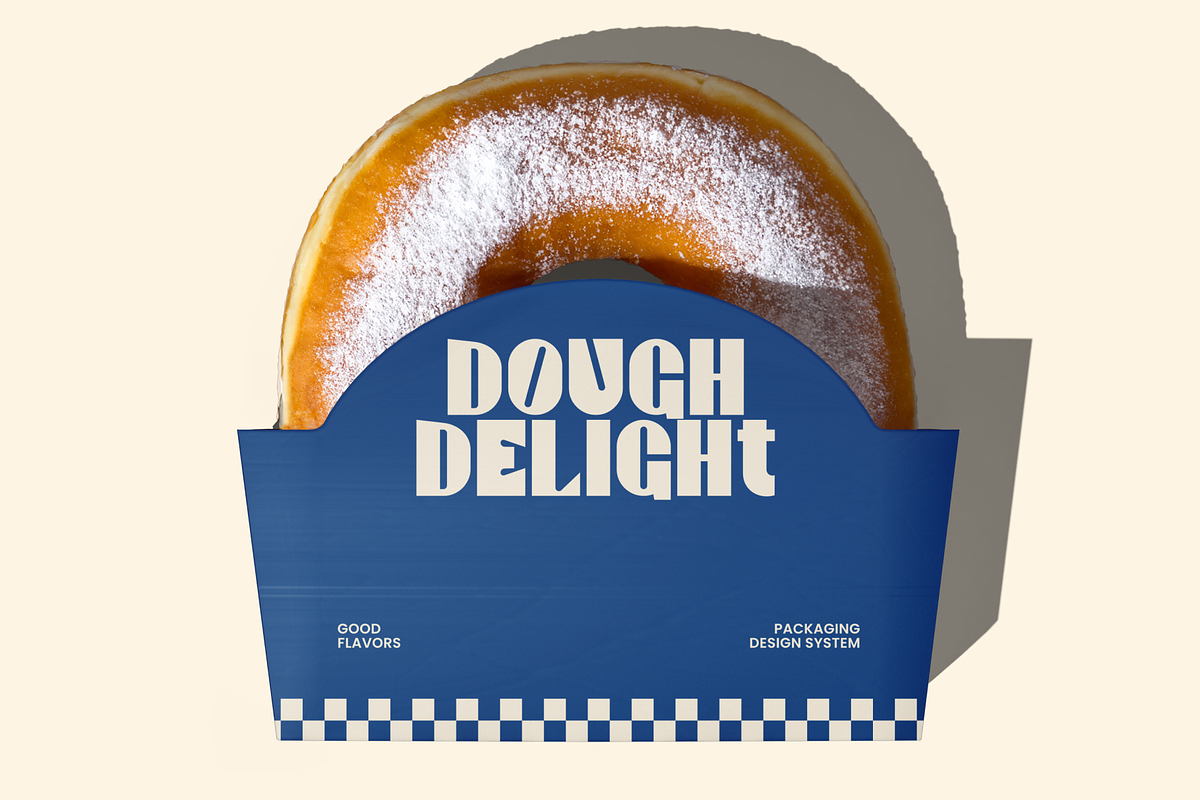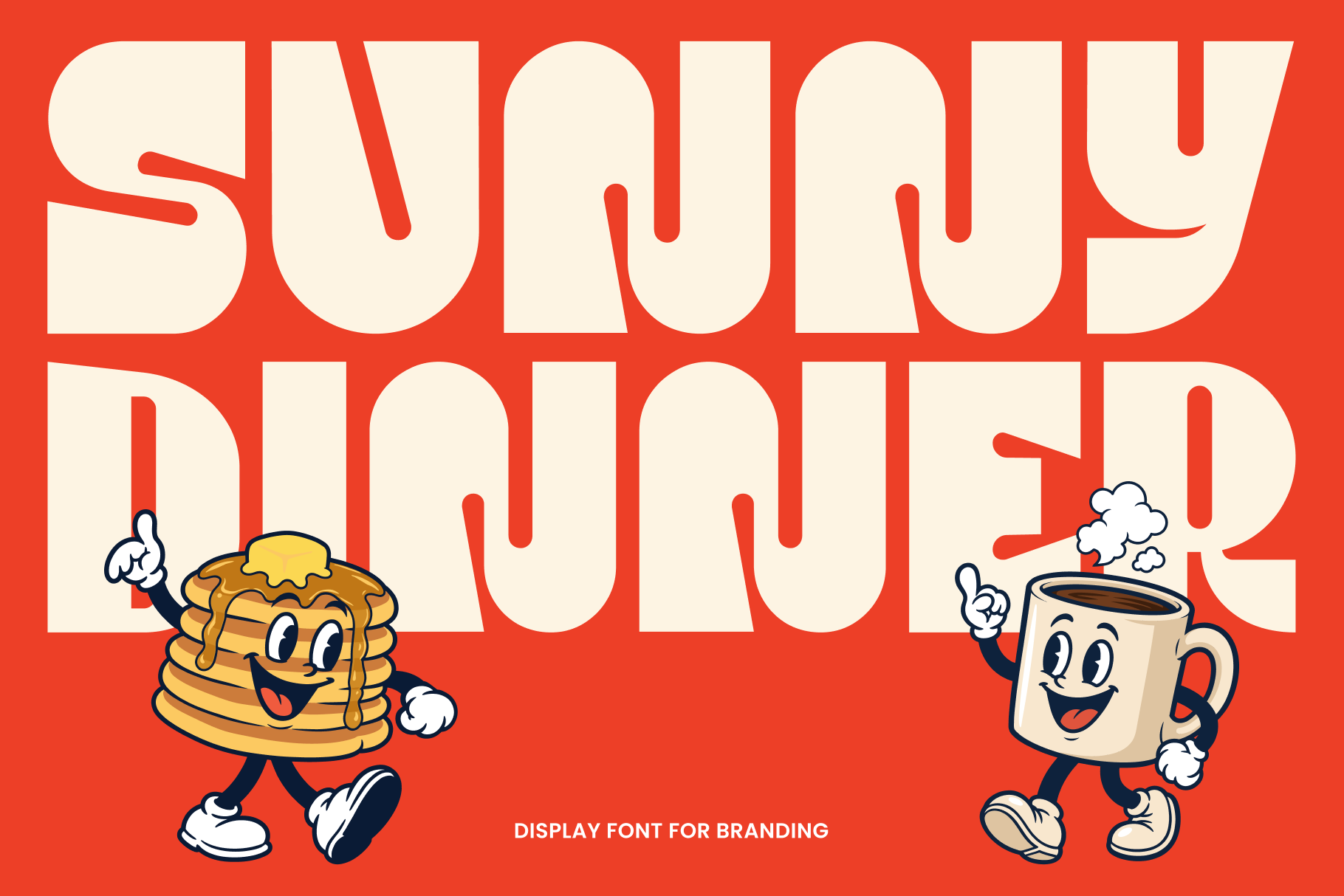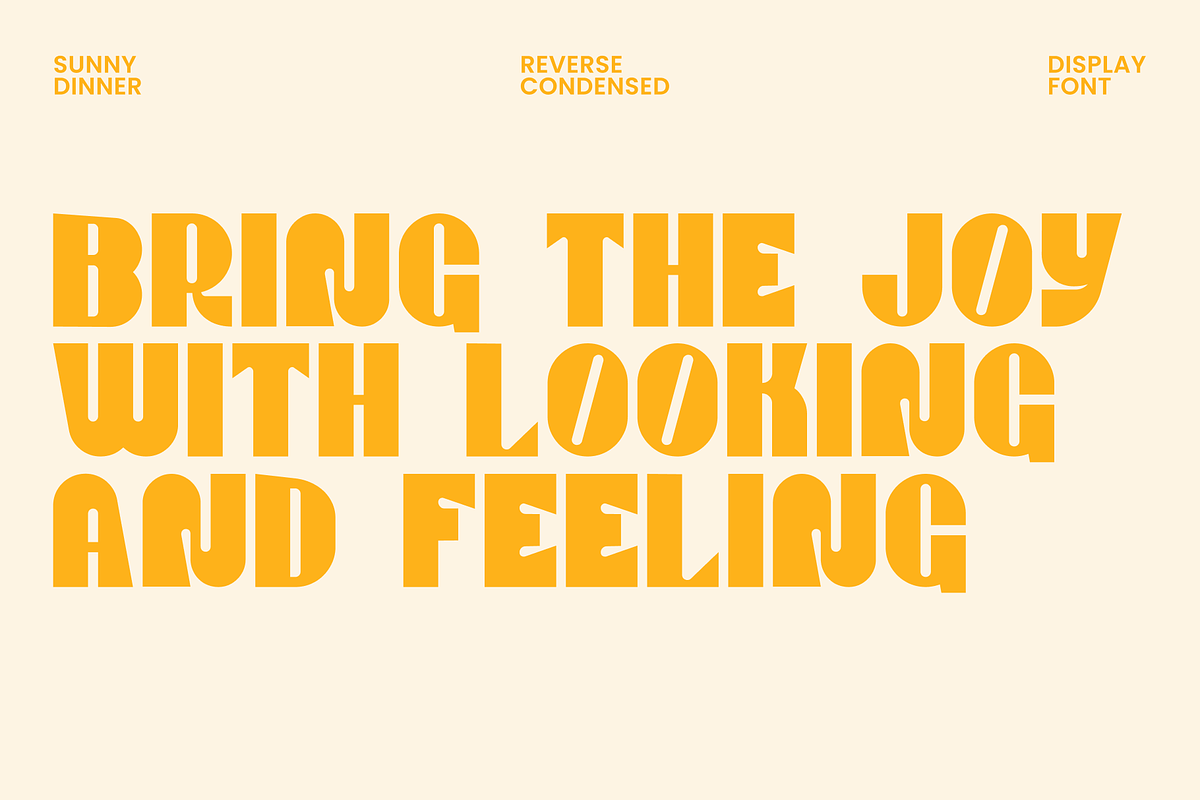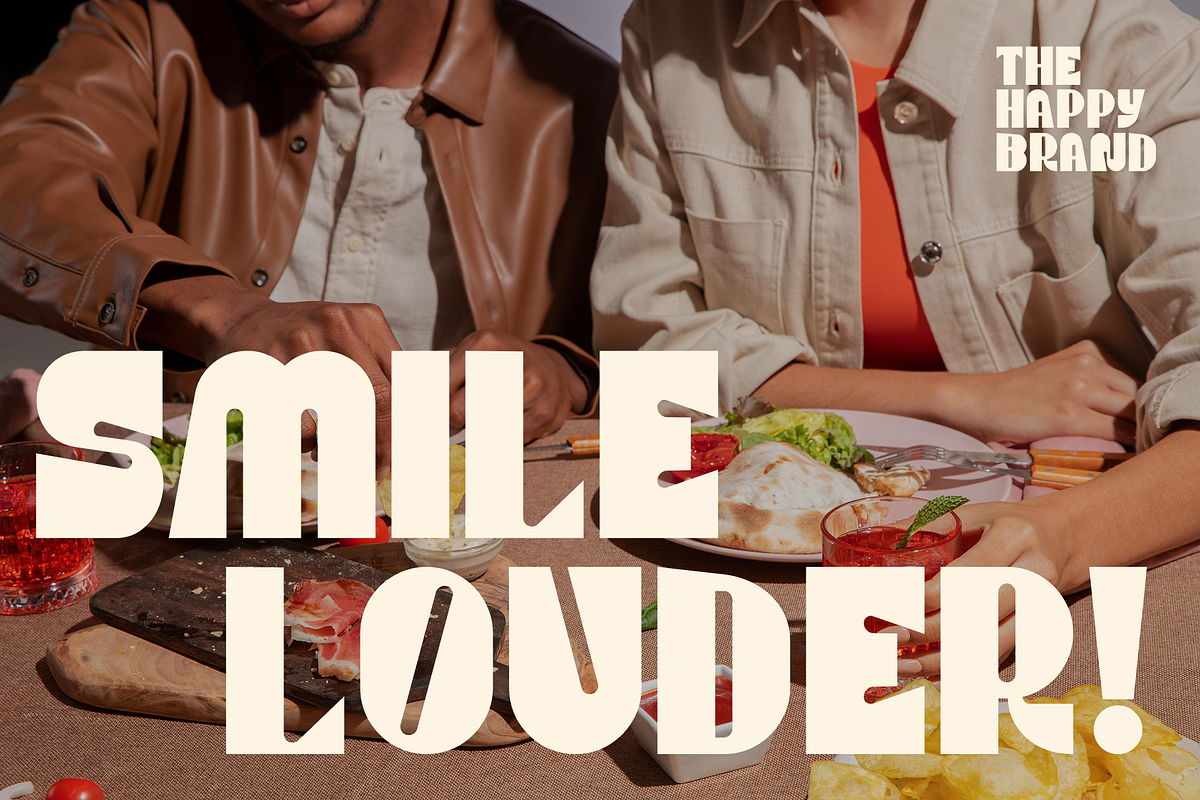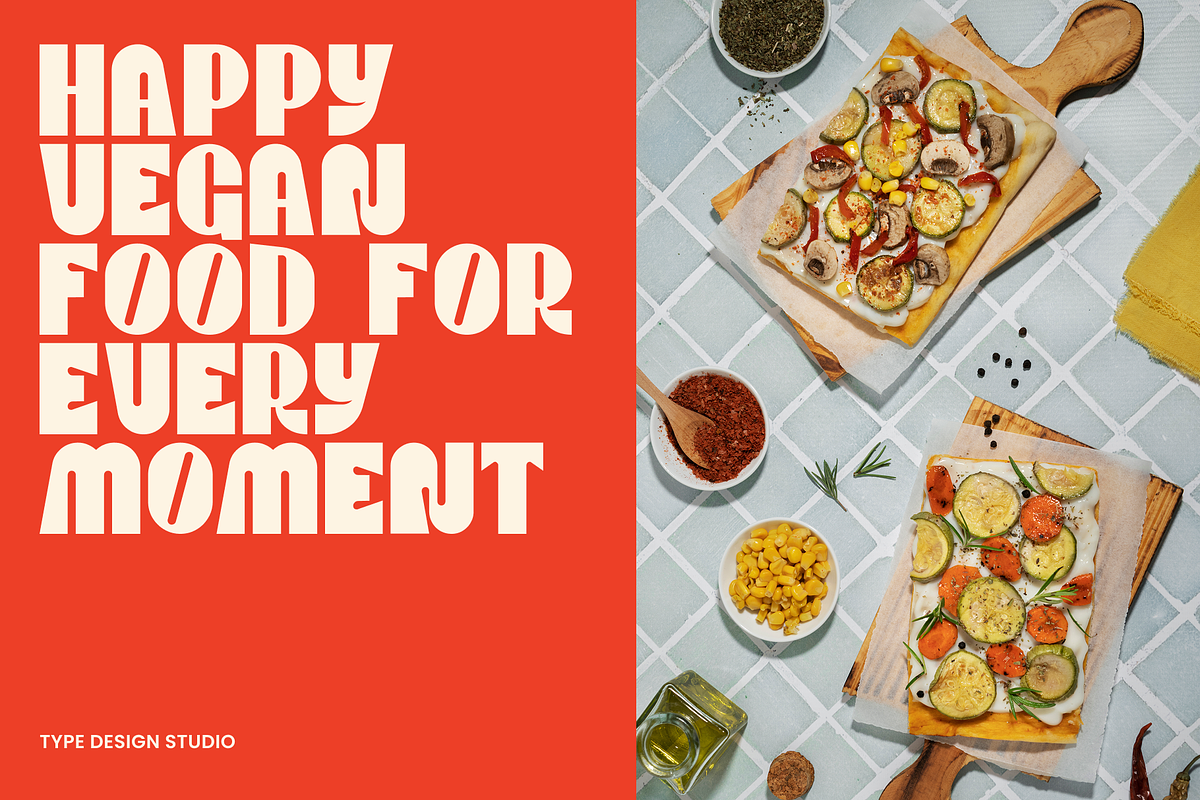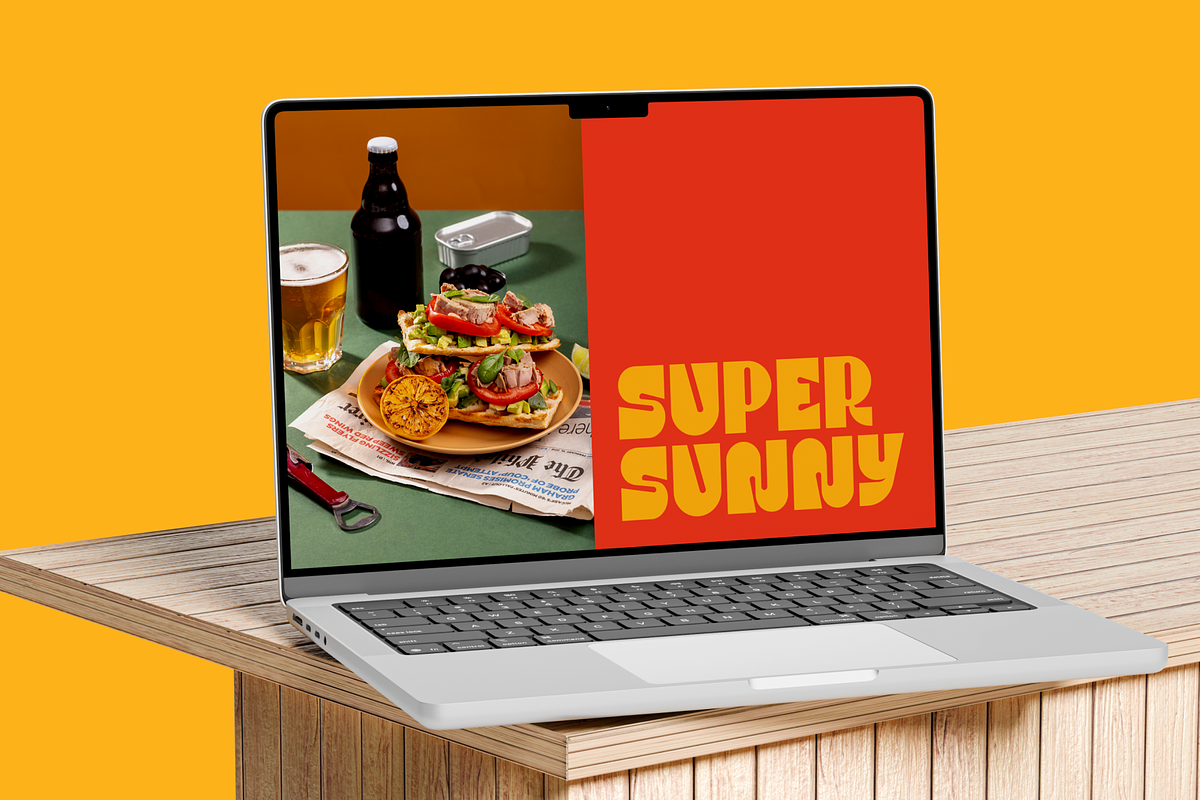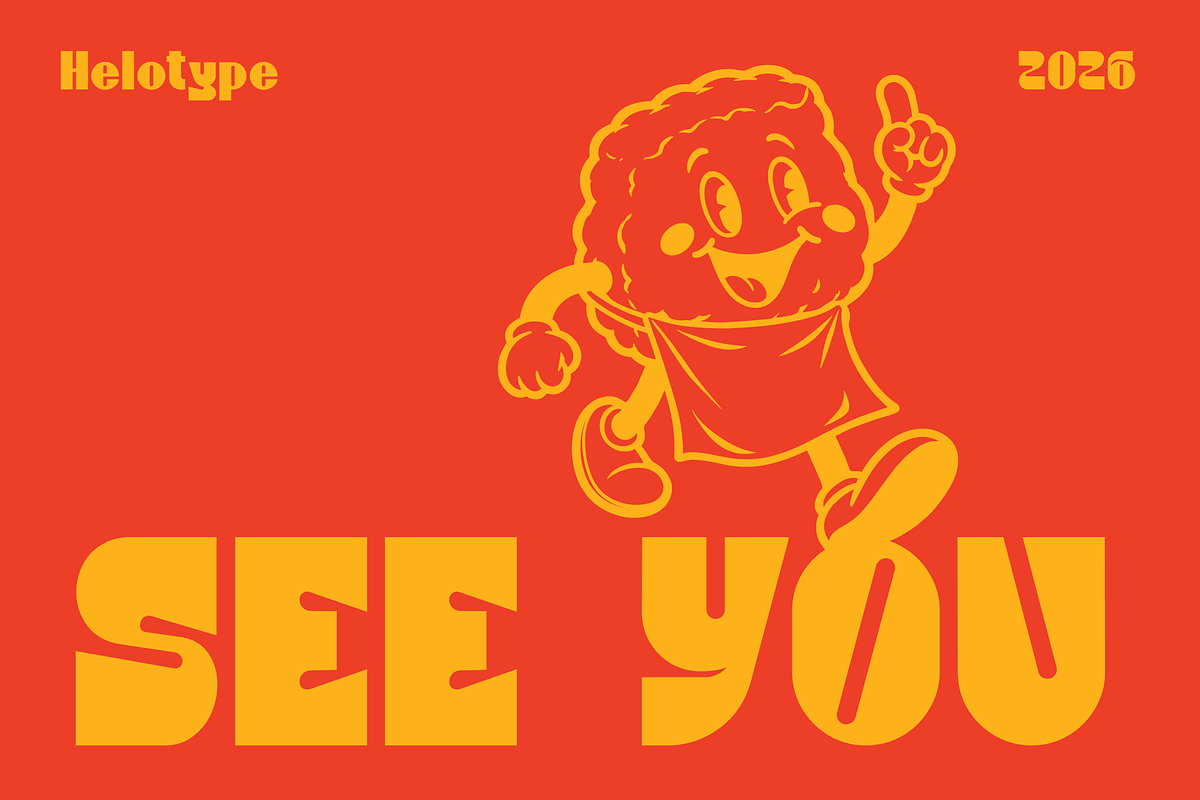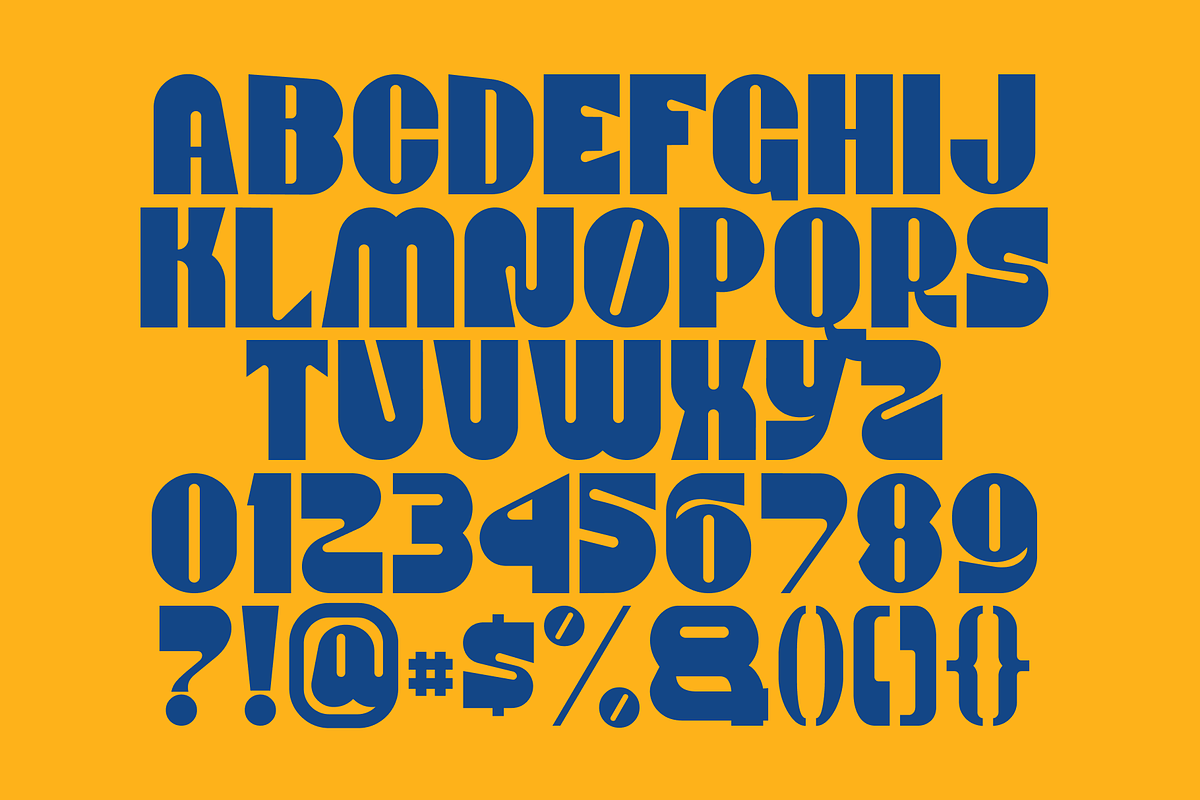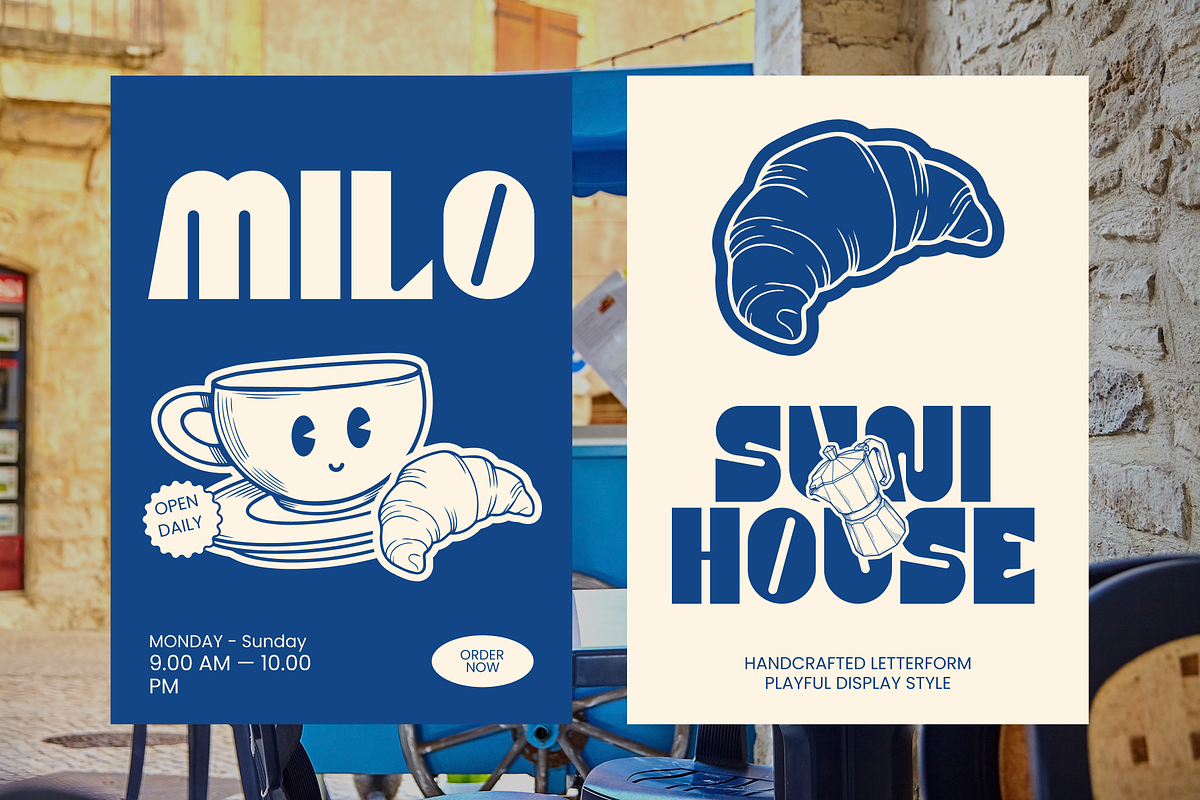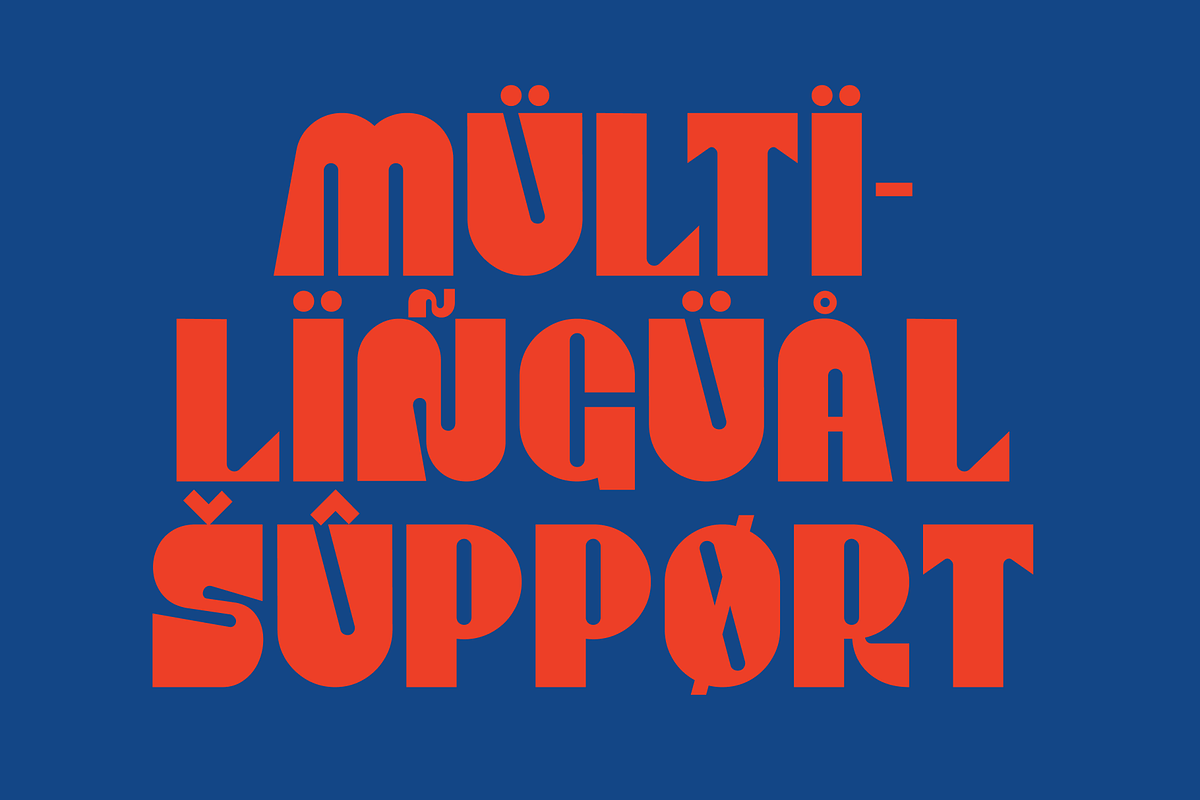
Sunny Dinner – Vintage Food Typeface
Sunny Dinner is a bold retro display font inspired by vintage diners, coffee shops, food packaging, and playful lifestyle branding. Featuring a unique groovy letter style with strong geometric shapes and a nostalgic 70s aesthetic, this typeface is perfect for logos, restaurant branding, menu designs, posters, packaging, merchandise, social media graphics, and creative advertising projects.
Designed to create a fun, energetic, and memorable visual identity, Sunny Dinner brings a cheerful vintage personality to any design project. Perfect for food brands, cafes, bakeries, restaurants, beverage labels, and modern retro designs.
Ideal for:
Restaurant & cafe branding
Food packaging design
Logo creation
Menu typography
Poster headlines
Retro advertisements
Merchandise design
Social media campaigns
Editorial titles